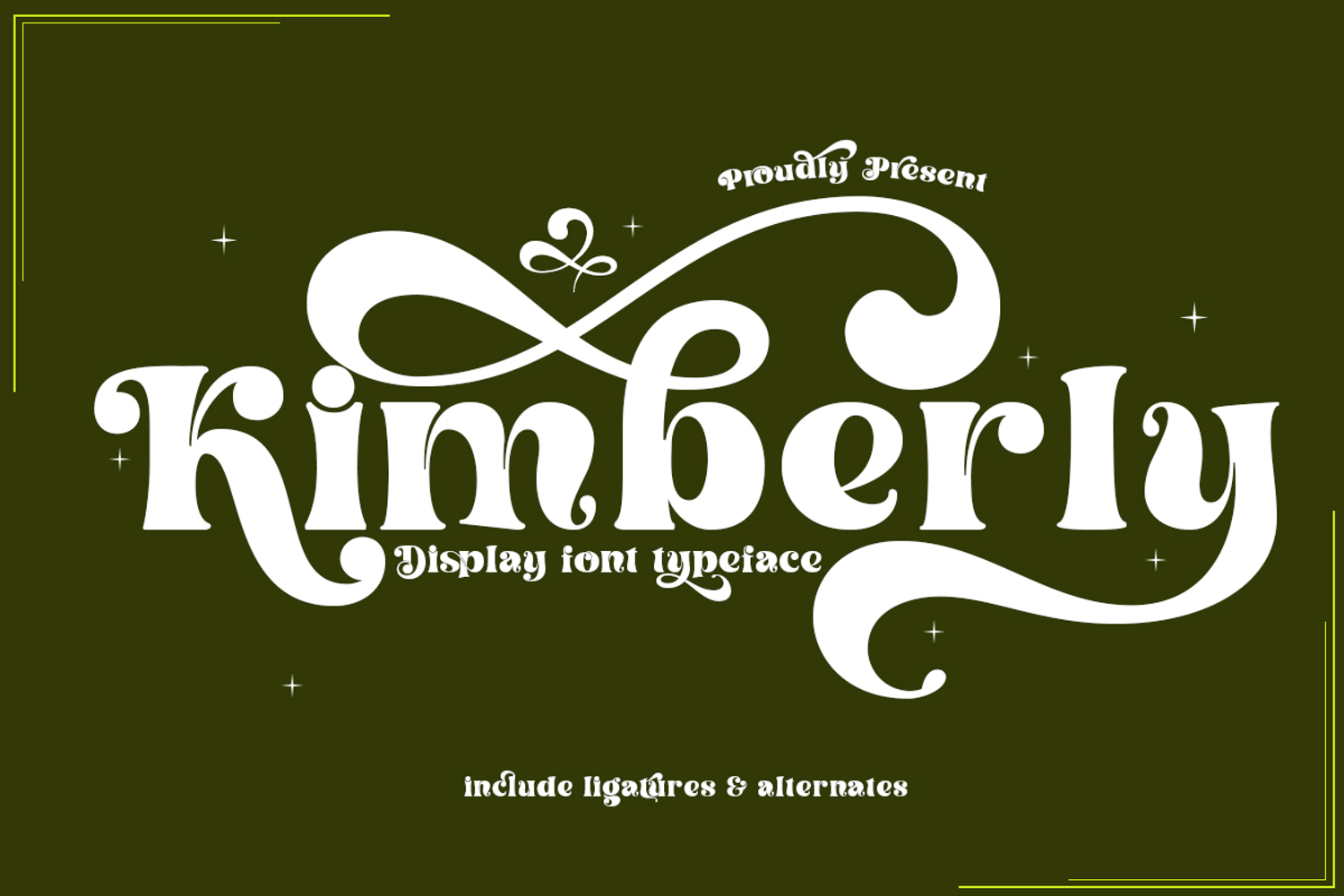
Kimberly
Kimberly is a font that is elegant and very stylis, this font is really sweet to use as some of your design work if you want to display a modern and bold style, there are several characters that you can use, as an additional style that will make your design more classy and looks different